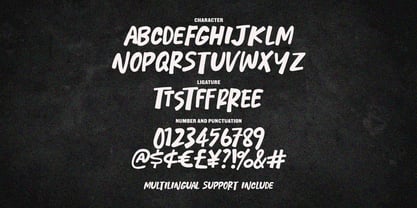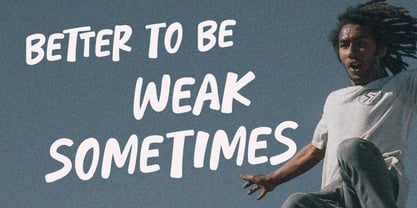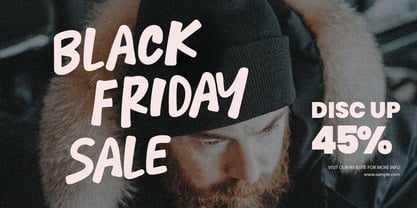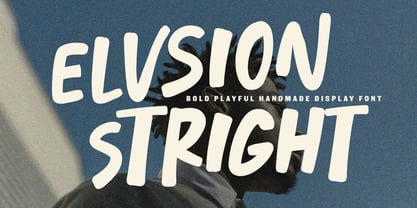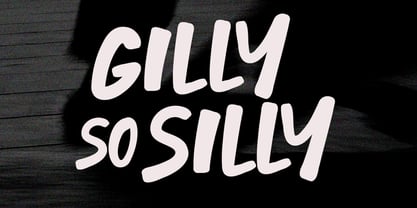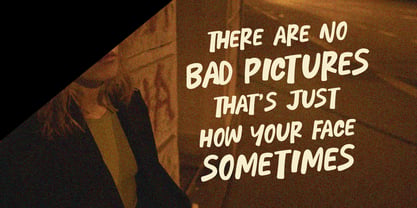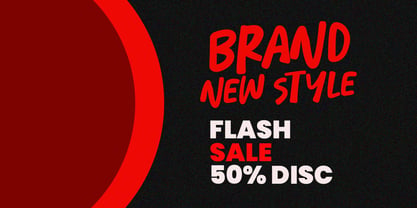
MC Elvsion Stright
by Maulana Creative
The MC Elvsion Stright Font Family was designed by Gilang Maulana and published by Maulana Creative. MC Elvsion Stright contains 1 styles. More about this family
Unleash your creativity with Elvsion Stright! Elvsion Stright is a handcrafted display font designed with a bold, rhythmic, and authentic feel. Its unique "stright" yet organic strokes give your designs a personal touch that is both modern and approachable. Whether you are working on a high-energy street brand, a catchy social media quote, or a professional marketing, this font provides the perfect balance of readability and character. Packed with unique ligatures support, Elvsion Stright ensures your message stays consistent across different languages and creative layouts. It’s the ultimate choice for designers who want to break away from clean, sterile typography and embrace a more "handmade" aesthetic.
Designers: Gilang Maulana
Foundry: Maulana Creative